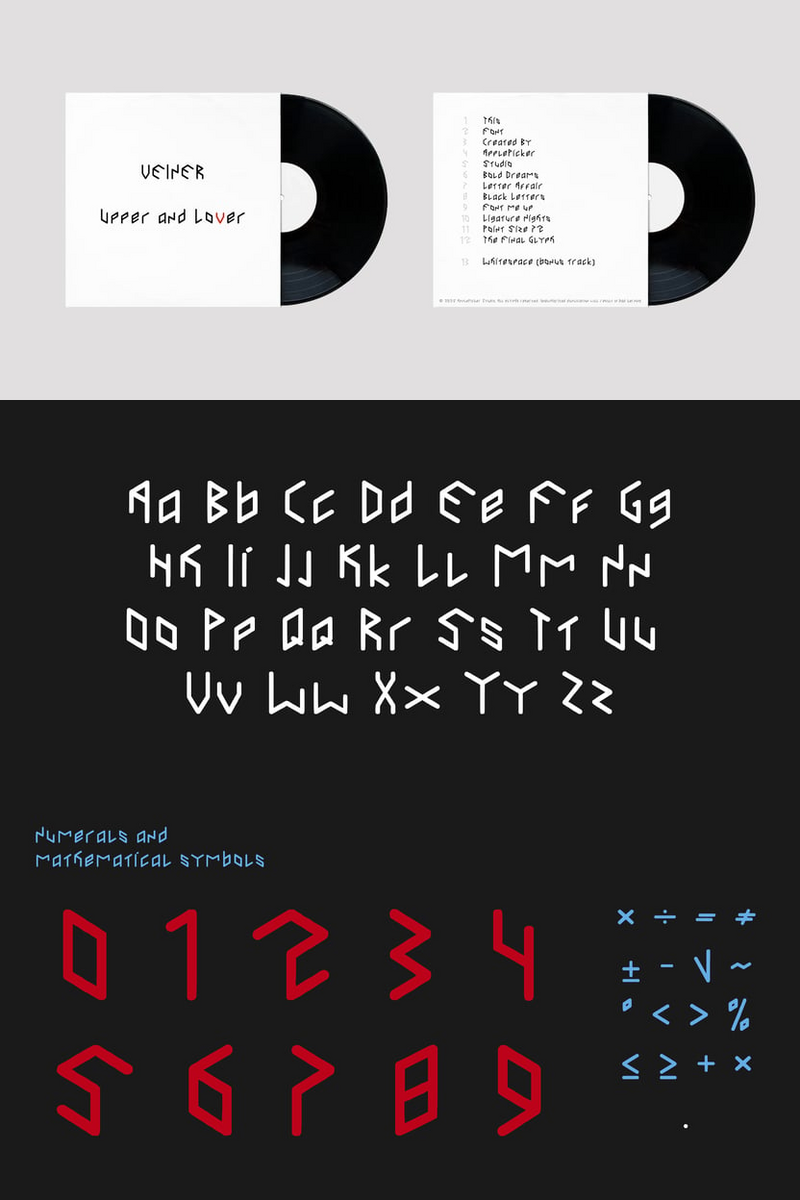
**Veiner: How will its friendly-futuristic byte-stream redefine your learning platform's brand identity, crafting iconic logos like 'Neural Pathways Edu' or 'Synapse Academy'?**
In the ever-evolving digital cosmos of education, your platform isn't just delivering content; it's architecting an experience. Introducing Veiner, the groundbreaking new font engineered to fuse the warmth of human connection with the sleek precision of tomorrow's technology. Veiner isn't merely a set of characters; it's a visual algorithm for engagement, a friendly byte-stream designed to make every interaction feel intuitively intelligent and deeply approachable.
Imagine a learning interface where every headline, every module description, and every prompt radiates an inviting glow. Veiner achieves this with a unique blend of soft, rounded terminals and a forward-thinking geometric structure. It's the digital handshake that says, "Welcome, let's explore together," rather than "Proceed with caution." For educational and learning platforms, where fostering curiosity and mitigating intimidation are paramount, Veiner transforms the sterile screen into a vibrant, empathetic learning space.
The narrative of learning is shifting, and your brand needs a typeface that speaks to the digitally native generation. With Veiner, you're not just presenting information; you're building a relationship. Picture a student logging into a dashboard adorned with Veiner's friendly aesthetics—the immediate impression is one of ease, clarity, and trust. This isn't just about readability; it's about emotional resonance, making complex concepts feel accessible and encouraging learners to dive deeper without hesitation. From coding tutorials to virtual science labs, Veiner ensures that your content feels less like an impersonal data dump and more like a guided conversation with a trusted mentor.
The core value proposition of the Veiner font is simple yet profound: it empowers your brand to forge genuine emotional connections in a hyper-digital world. By deploying Veiner typeface, you gain a powerful tool to:* Boost Engagement & Retention: Its friendly, approachable tone significantly reduces cognitive load and fosters a more positive learning environment, leading to increased student interaction and completion rates.* Cultivate a Unique Brand Identity: Differentiate your platform with a signature look that is both cutting-edge and deeply human, instantly recognizable for its empathetic design.* Optimize for Universal Clarity: Engineered for superior legibility across all screen sizes and devices, ensuring every learner, regardless of their setup, experiences optimal comprehension.
Veiner: Engineering Empathy into Every Character.
This versatile educational font is a game-changer for your entire digital ecosystem. Implement Veiner in your user interface and experience (UI/UX) for dashboard elements, navigation, and interactive prompts. Elevate your course content by using it for module titles, lecture slide decks, and digital textbooks. Infuse your marketing and branding materials—from website headlines to social media campaigns and promotional graphics—with a distinctive voice. Even your logo design, for initiatives like 'CognitoStream' or 'PixelPath Education,' will benefit from Veiner's ability to communicate innovation with warmth.